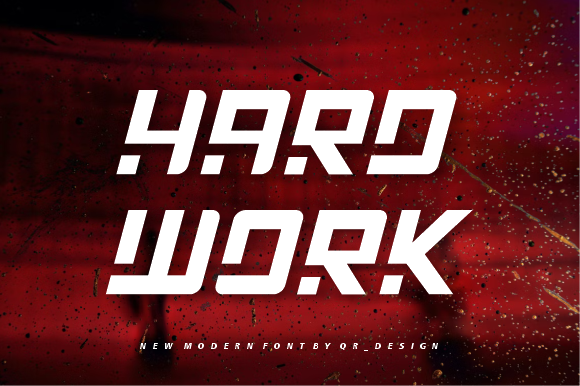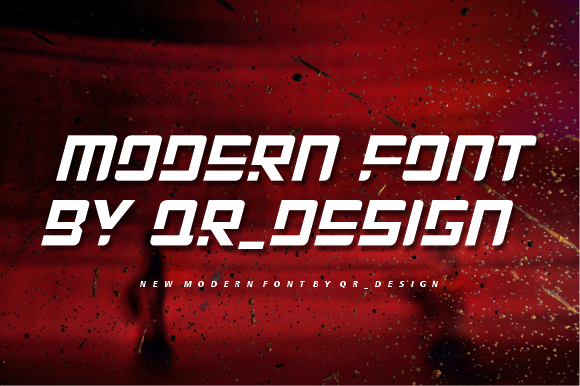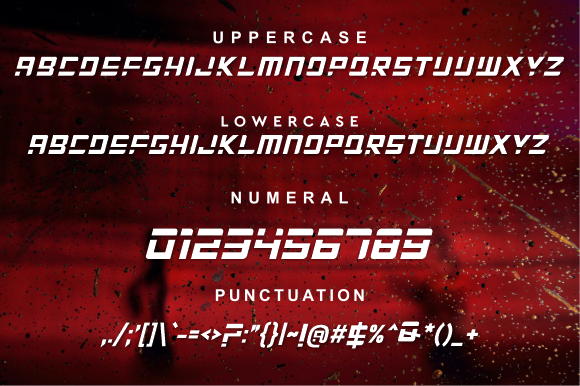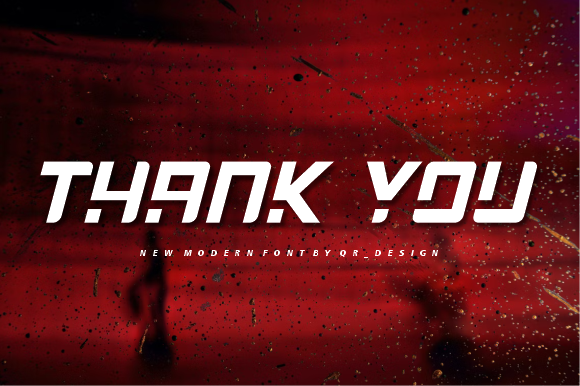
Introduction to Quickly Work Font
As a designer, have you ever been in a rush to meet a tight deadline, staring at a blank canvas, and desperately seeking the perfect font to bring your creative project to life? The thrill of the design process can be exhilarating, but it’s often the smallest details that make all the difference. For those moments when you need a font that speaks volumes, we’re excited to introduce the Quickly Work Font – a bold and authentic display font that’s about to become your new design BFF.
With its versatility and modern aesthetic, the Quickly Work Font is an excellent addition to any design resource, perfect for logo designs, t-shirt printing, games, sports, and more. Whether you’re working on a project with a transparent background or need a font that stands out, this high-quality font is sure to deliver. And the best part? It’s available for free download, making it an invaluable asset for designers of all levels.
Key Features of Quickly Work Font
- Unique characteristic: Customizable font styles with multiple weights and italics
- Designed for versatility, suitable for use in digital and print media
Honest Review: Quickly Work Font
As a designer, I’m always on the lookout for high-quality design resources that can elevate my creative projects. The Quickly Work Font is one such resource that caught my attention. I decided to dive in and see what it has to offer.
- High-quality design: The font is crisp and clear, making it perfect for a variety of creative projects.
- Limited character set: While the font is well-designed, the character set is limited, which may not be ideal for designers working on long-form content.
- Lack of customization options: Unfortunately, the font doesn’t offer many customization options, which may limit its use in certain design projects.
Overall, I’m impressed with the Quickly Work Font’s quality and versatility. While it has some limitations, it’s a great design resource for designers working on creative projects. If you’re looking for a high-quality font for your next design project, I’d definitely recommend giving the Quickly Work Font a try.
Quickly Work Font is a versatile design resource that can be used in various creative projects, such as:
- Logos and branding
- Posters and brochures
- Presentation slides
- Document templates
For optimal results, use Quickly Work Font on a transparent background to give your design a clean and modern look. You can also experiment with different font sizes and styles to create a unique and eye-catching design.